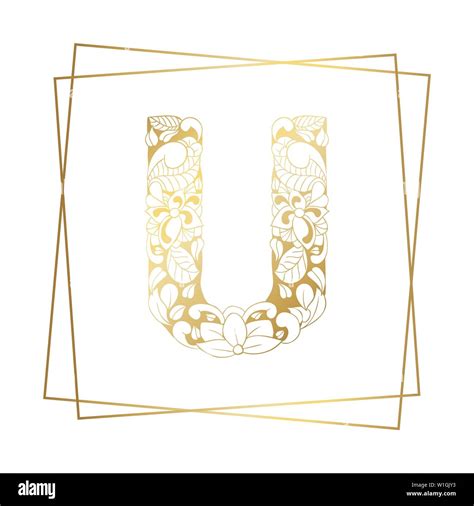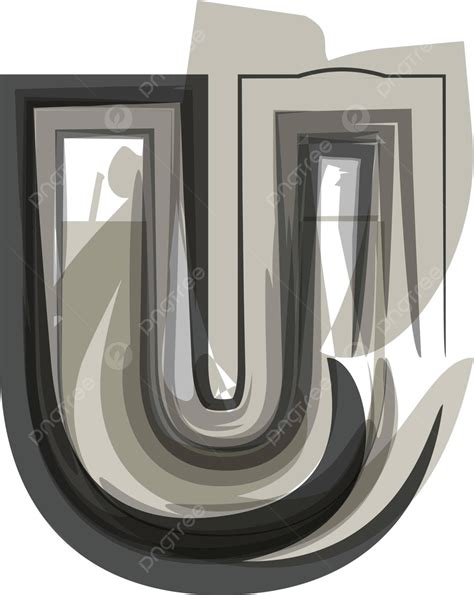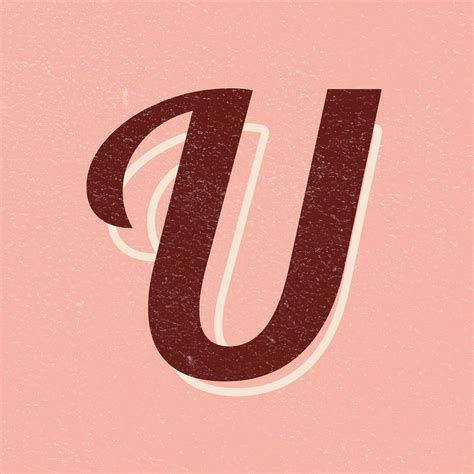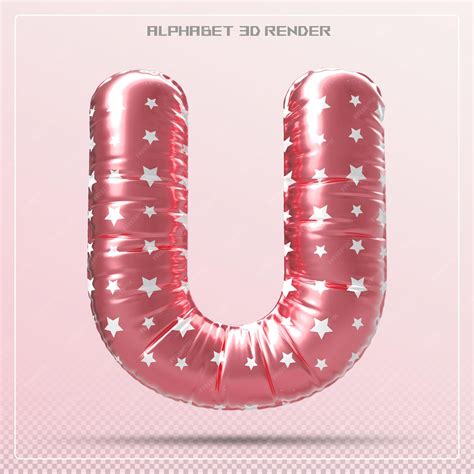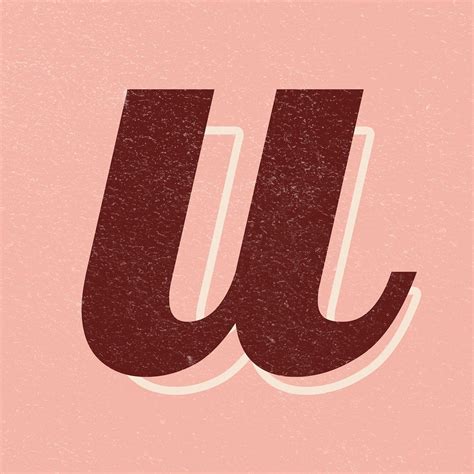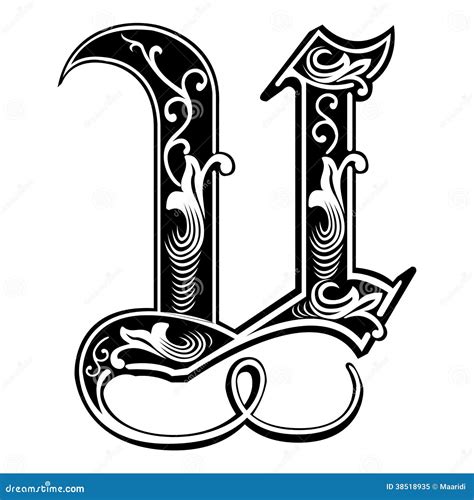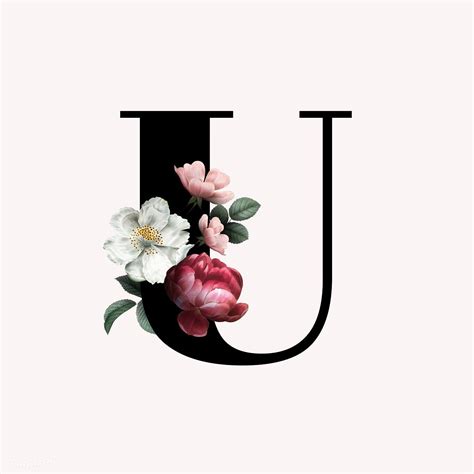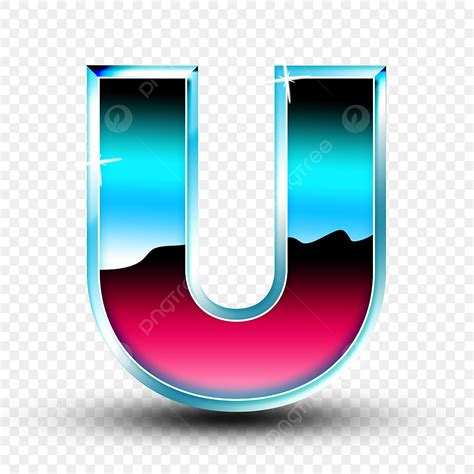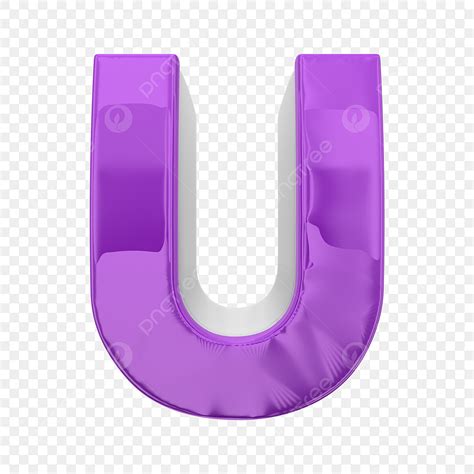
The mastery of Letter U Font Design symbolize a unequaled challenge for typographers and graphical designers likewise. Because the letter' U' possesses a specific geometric balance - sitting somewhere between the curvature of an' O' and the verticality of an' I' - it often dictates the personality of an entire case. Whether you are craft a vintage seriph, a modern geometric sans, or a aerodynamic calligraphical book, the way you construct this fiber determine the readability and aesthetic concordance of your task. By read the historic evolution, structural frame, and digital rendering requirements of this character, designers can raise their employment from standard text to optic art.
The Anatomy and Geometry of the Letter U
When approach the design of the letter' U ', one must firstly take its frame. In historic epigraphy, the' U' was often standardised with ' V ', and this legacy persists in many classic typeface designs. To create a modernistic, high-quality Letter U fount blueprint, you must poise the thickness of the stem, the radius of the bottom curve (the "trough" ), and the optical corrections needed to prevent the letter from appearing bottom-heavy.
Key Structural Considerations
- Stroke Modulation: The conversion from the erect halt to the understructure bender must be seamless to avoid "kinking" or visual tensity.
- Optical Balance: Because a absolutely geometrical' U' looks bottom-heavy, designers ofttimes elevate the curve slightly or cut the shot at the bottom to keep optical weight.
- Serif Location: For serif designs, the bottom serifs must align precisely with the baseline, need careful adjustment of the curve's expiration point.
- Internal Aperture: The "tabulator" or national space of the' U' needs to be exposed enough to remain legible at small sizing, specially in screen-based typography.
Styles and Applications
The application of a missive design changes importantly based on the intended medium. A Letter U baptistry design for opulence branding might prioritize elegant, high-contrast line, whereas a UI design for a mobile covering would focus on apoplexy uniformity and clarity. Below is a compare of how different font categories treat this specific character:
| Way | Characteristic | Best Use Case |
| Geometric Sans | Perfect circular nates, uniform thickness. | Modern Tech, Minimalist branding. |
| Transitional Serif | High demarcation, sharp terminals, stable base. | Column, mark magazines, formal invitation. |
| Display Script | Flow ligatures, exaggerated curves, ornate. | Logos, promotion, aesthetic headers. |
💡 Billet: Always test your' U' in combination with' O ', ' V ', and 'N' to ensure that the character spacing and weight balance feel consistent across the intact glyph set.
Technical Execution and Digital Craft
Moving from a study to a digital transmitter involve punctilious itinerary direction. In package like FontLab or Glyphs, the curves specify the Letter U fount design should be constructed with the minimal routine of anchor points potential. Exuberant points direct to toothed edges, especially in low-resolution blind interpret. Focus on the "peak" points at the top, bottom, and widest part of the bender to keep smooth changeover.
Improving Legibility
Discernability is the main end of any functional typeface. When designing the' U ', the relationship between the letter and its neighbors - known as kerning - is vital. A mutual misunderstanding is allowing the bottom bender to overlap too far into the bounding box of next letters, which can cause characters to "clutter" together. Ensure the' U' has decent sidebearing to stand house, particularly if it is being used for body text where velocity of reading is indispensable.
The maturation of a balanced quality set requires forbearance and a keen eye for subtle variations in throw weight. By prioritise both the geometric integrity of the bowl and the technical precision of your transmitter paths, you can ensure that your typeface remains functional and esthetically delight. Whether you are purpose for a definitive looking or a modern-day flavor, mastering the design of item-by-item characters remains the fundamentals of successful optic communication and effective typography.